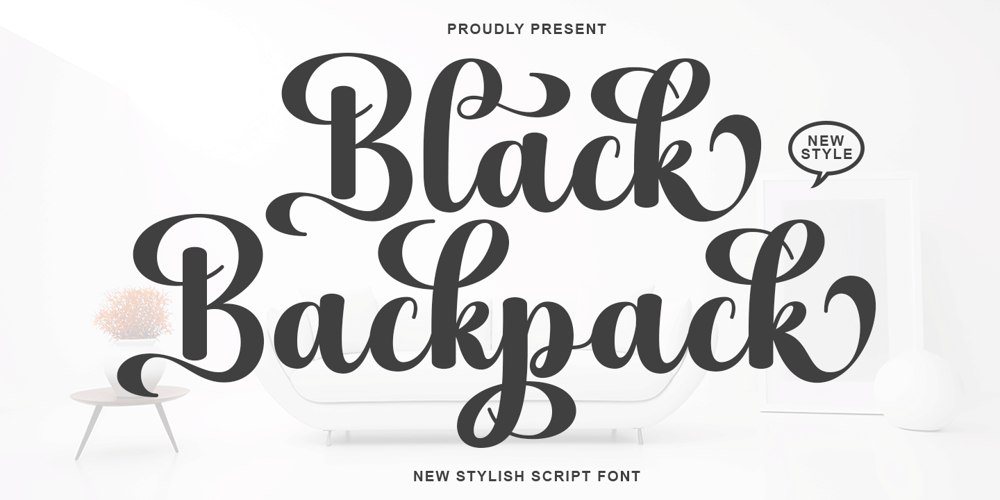
Black Backpack
Black Backpack font
Black Backpack Font Family was designed by Sidiq Fahmi and published by Rotterlab Studio. Black Backpack contains 1 styles and family package options. Black Boho Script is a beautiful script font with many alternative styles, natural-looking, elegant, and perfect for any extraordinary project.Black Boho Script is suitable for various products such as invitations, product packaging, product design, crafters, labels, photography, watermarks, logos & branding.Everything can be accessed using software that supports Opentype, such as Adobe Indesign, Adobe CS Illustrator, Adobe Photoshop CC, and Corel Draw.